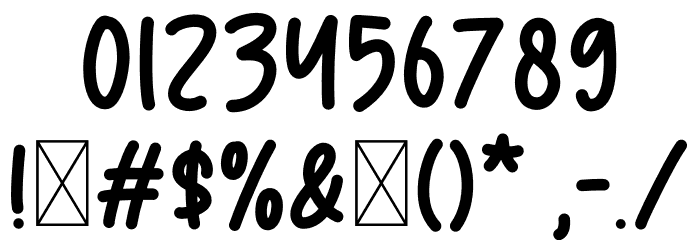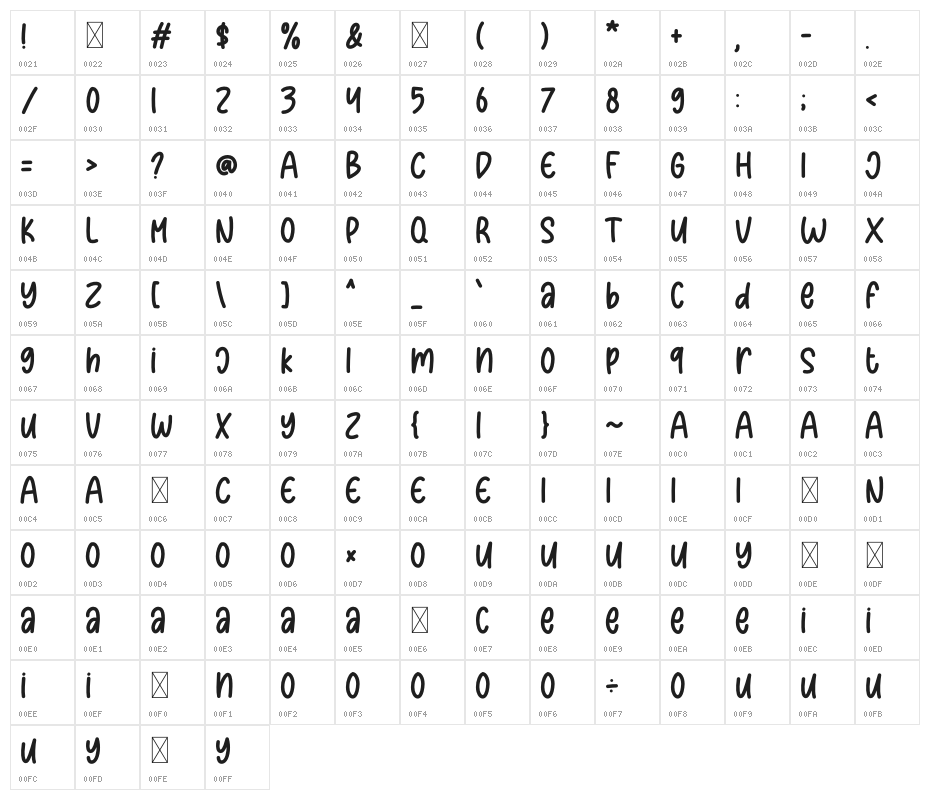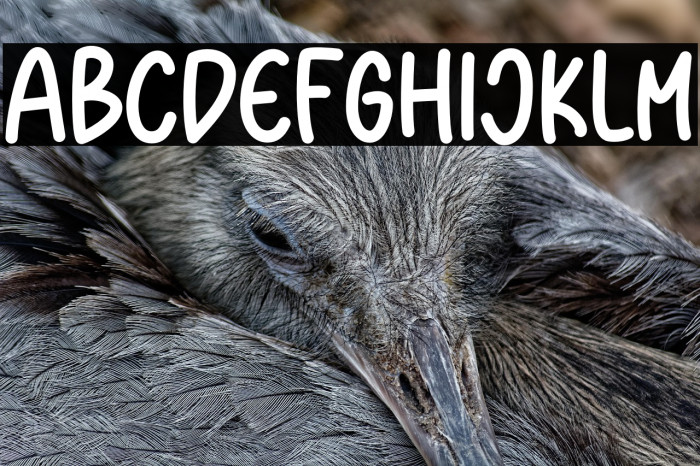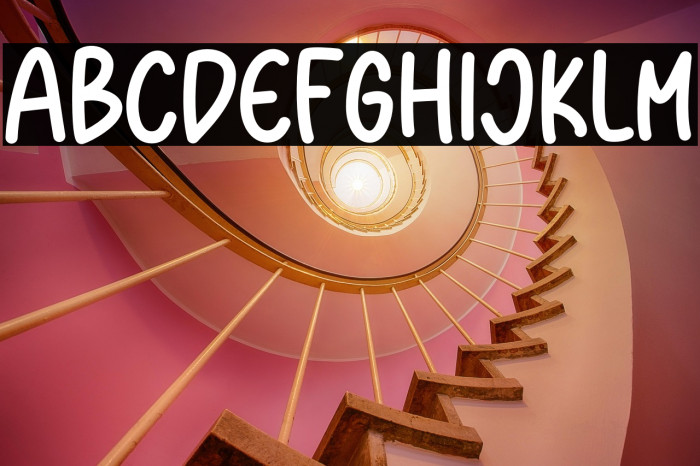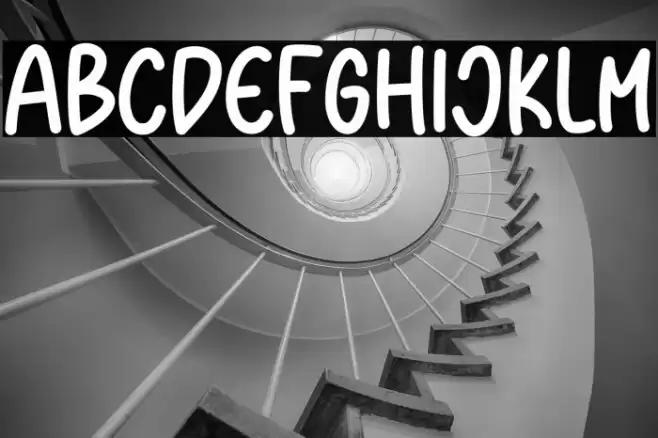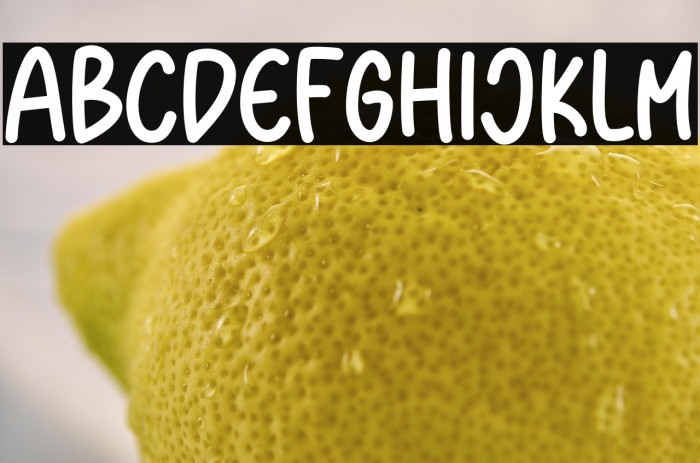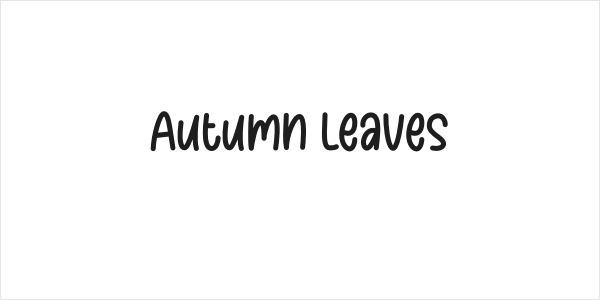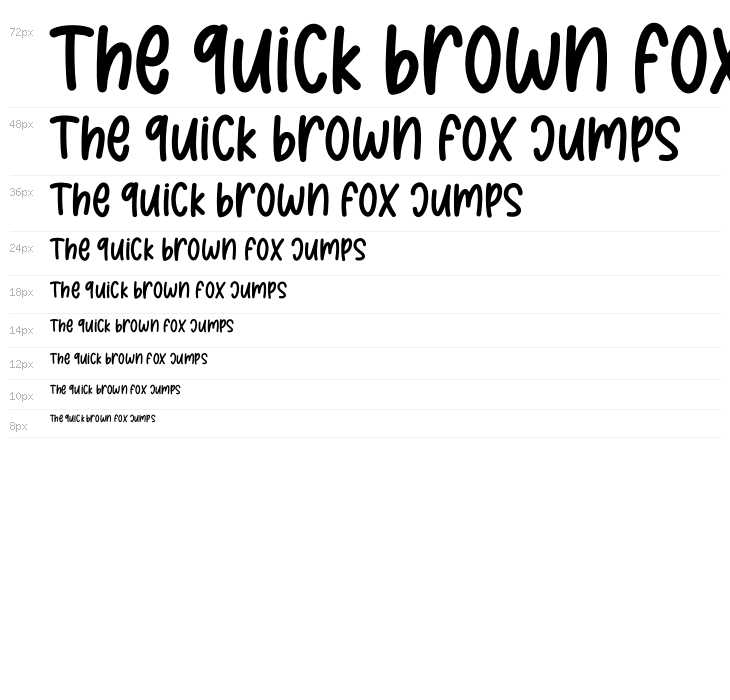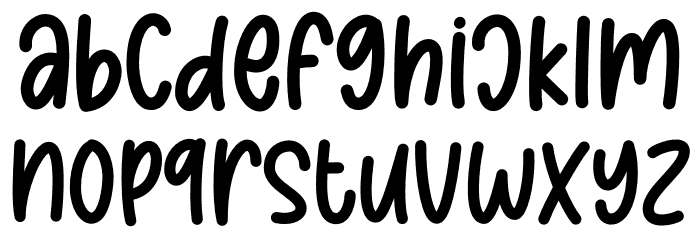
Autumn Leaves Font
Autumn Leaves Description
This playful and bold handwritten font features rounded edges and a casual, friendly appearance. The characters are slightly slanted, giving a dynamic and lively feel. The uppercase and lowercase letters maintain a consistent style, with a smooth flow and uniform stroke width. The numbers and special characters complement the alphabet with the same whimsical touch, making it suitable for creative and informal designs. The font's overall appearance is approachable and fun, perfect for projects that require a personal and engaging touch.